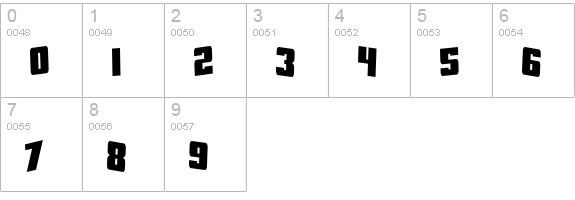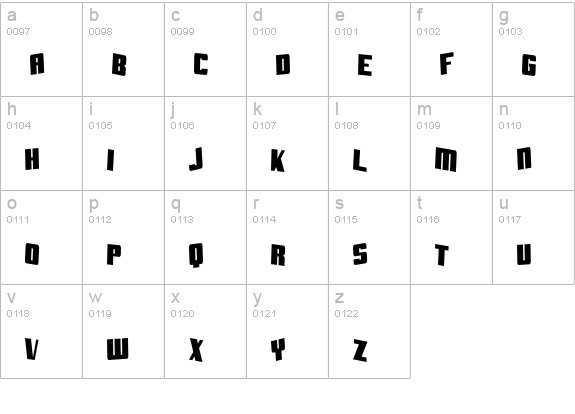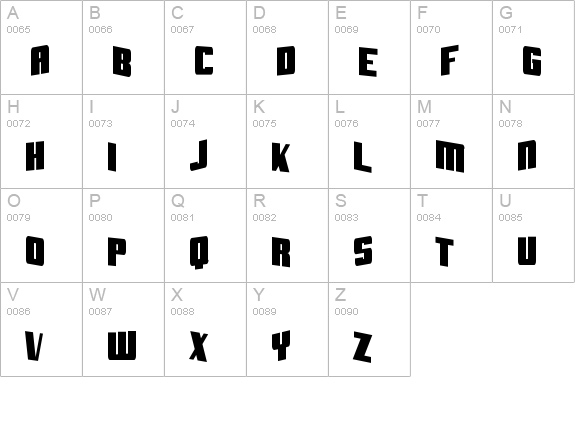
SF Aftershock Debris CondSolid Font Details
SF Aftershock Debris CondSolid is a bold and striking font that exudes strength and resilience. With its sharp edges and solid forms, this font captures the aftermath of destruction and the spirit of rebuilding. The condensed style adds a touch of sleekness and modernity to the overall design. This font is perfect for projects that require a powerful and impactful visual statement. Whether you're designing posters, logos, or headlines, SF Aftershock Debris CondSolid will make your message stand out from the crowd. And the best part? This font is freely available to download at FontsMarket.com. You can unleash your creativity and incorporate this stunning typeface into your projects without any cost. It's an incredible opportunity to add a touch of dynamism and strength to your designs, all while saving money. So don't miss out on this amazing offer. Visit FontsMarket.com today and get your hands on SF Aftershock Debris CondSolid. Let your designs speak volumes and leave a lasting impact on your audience.